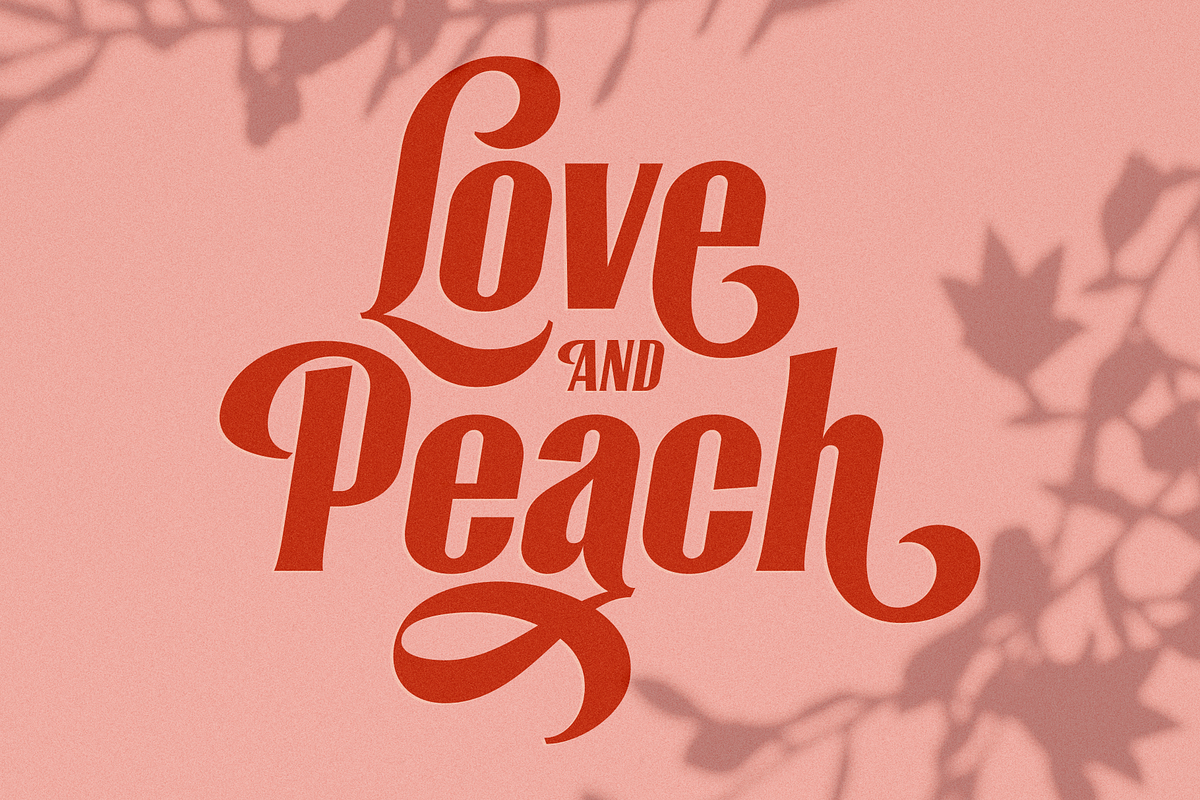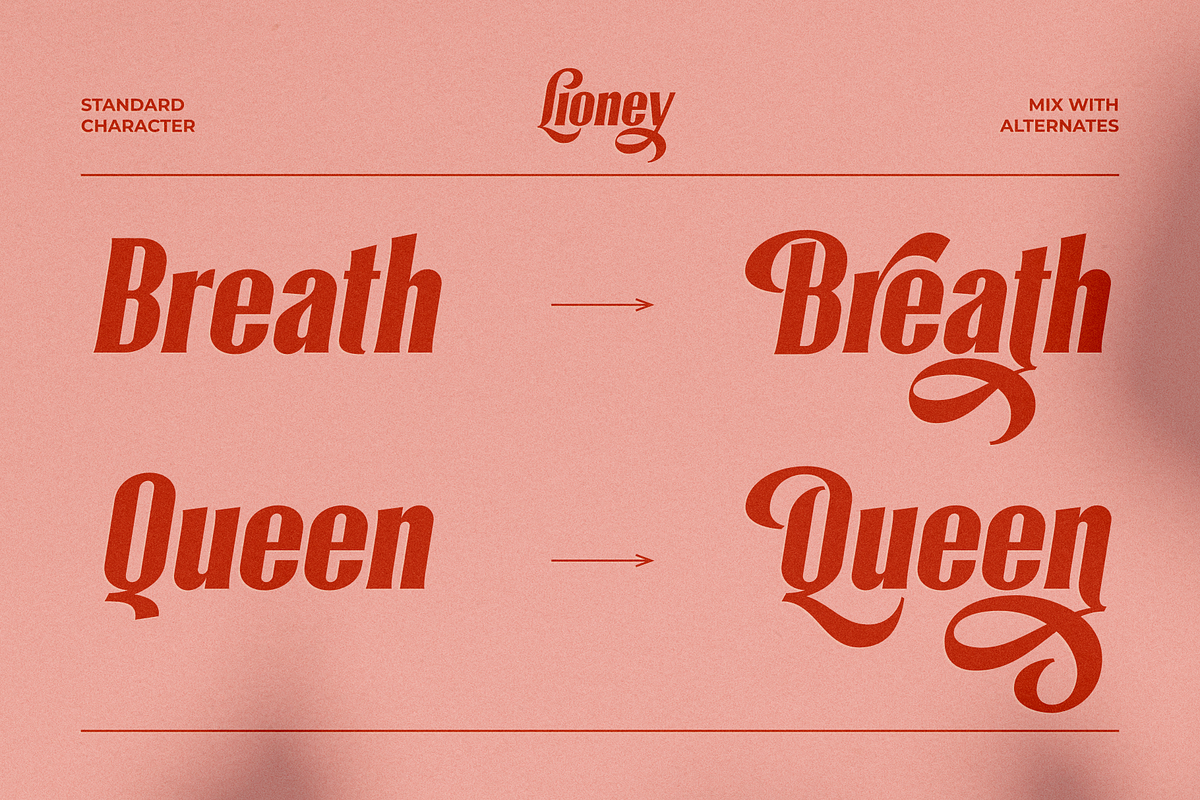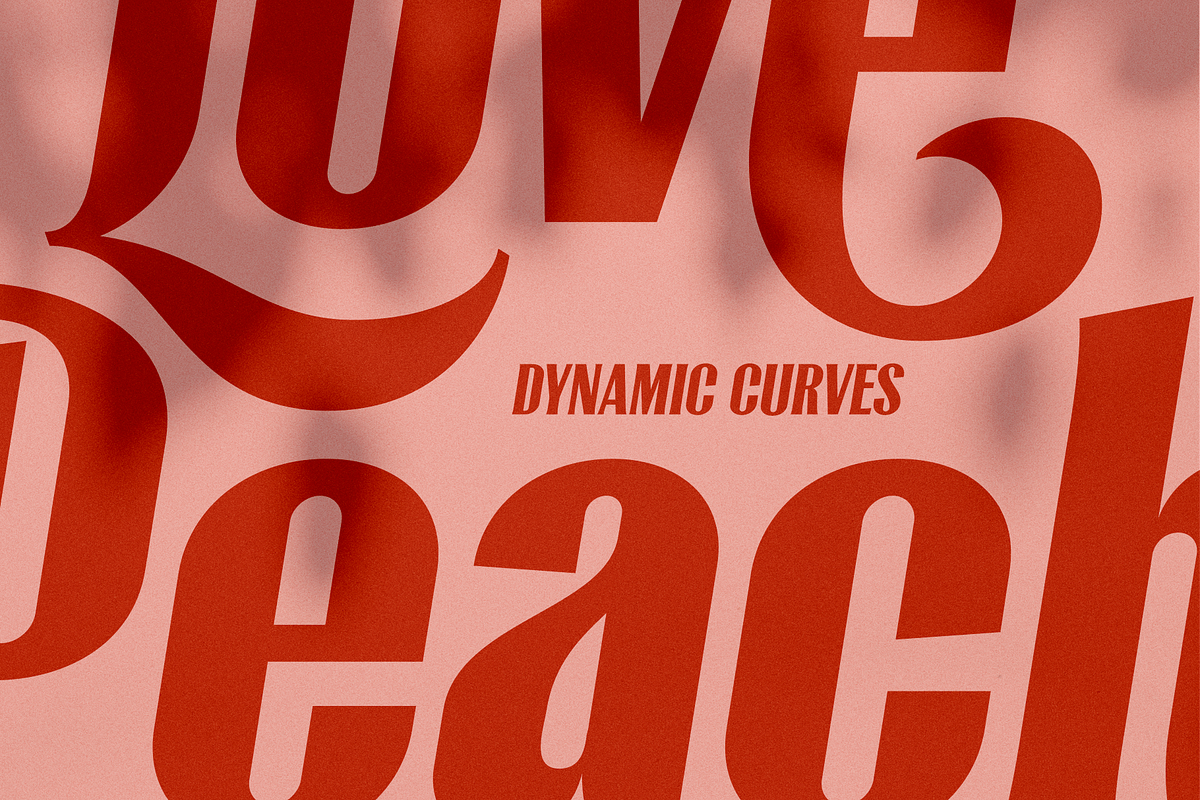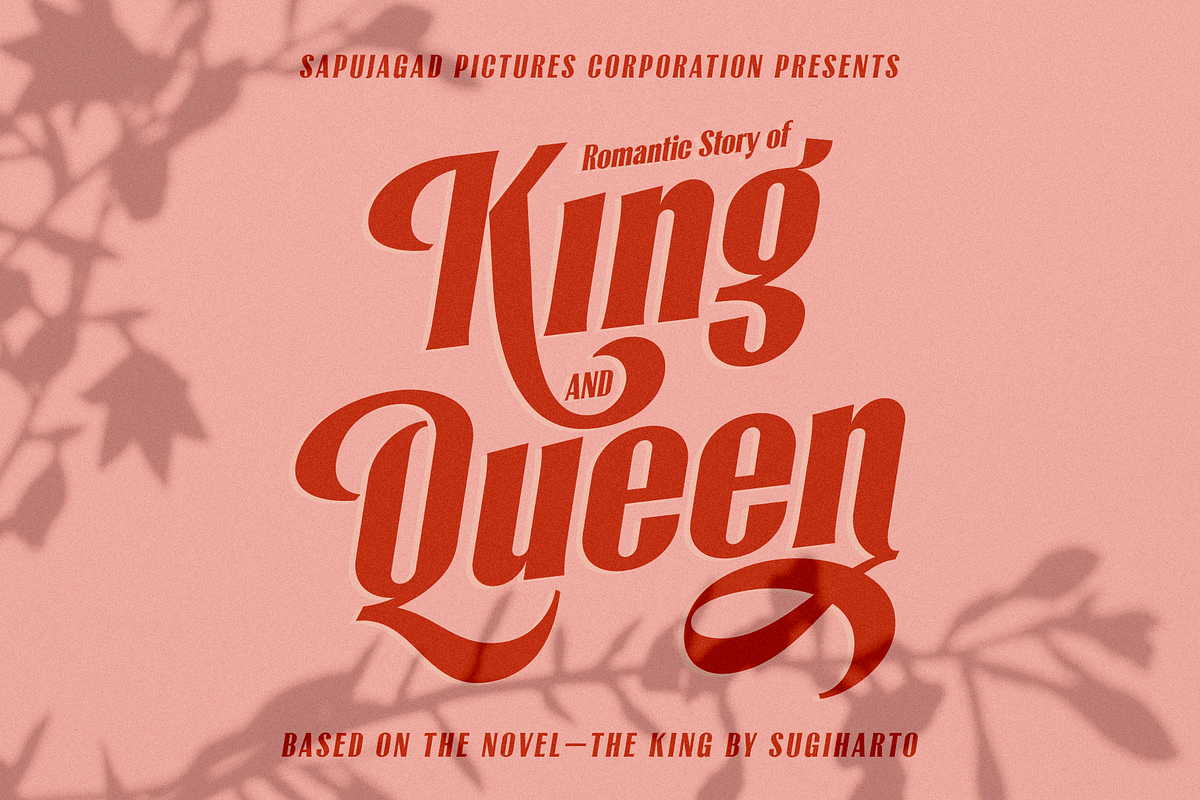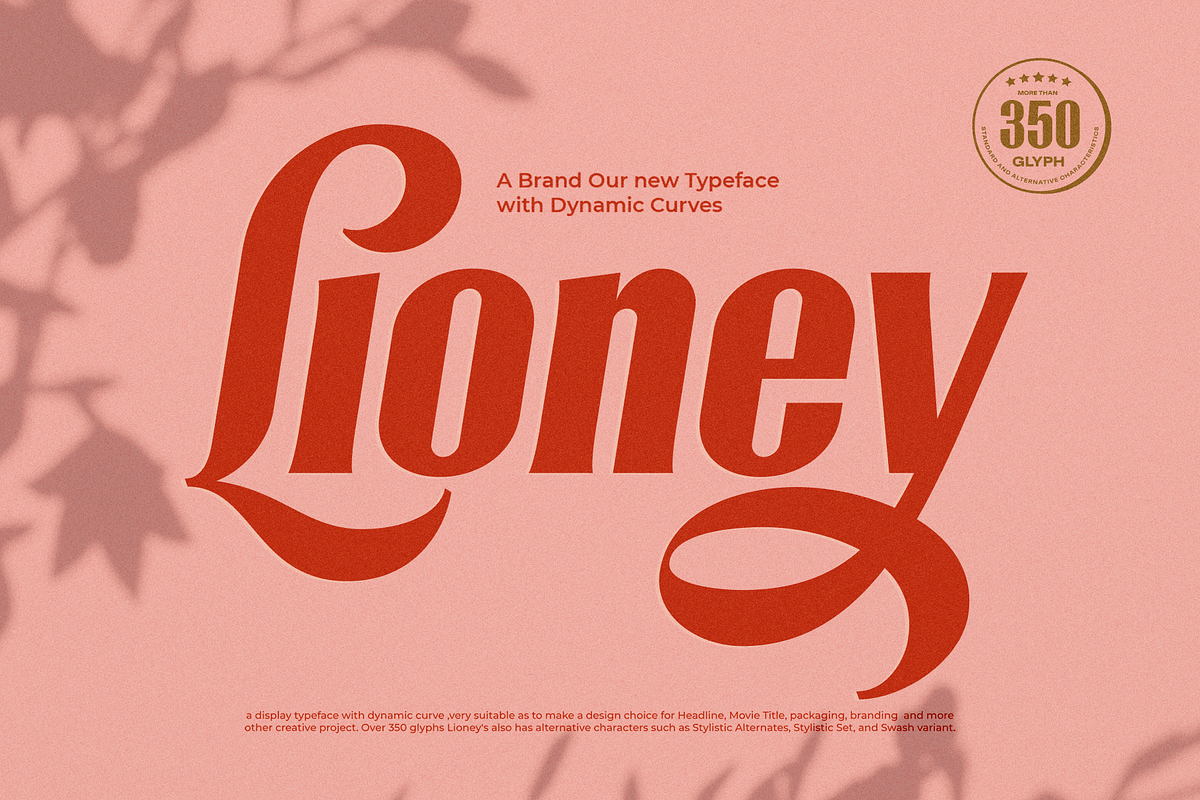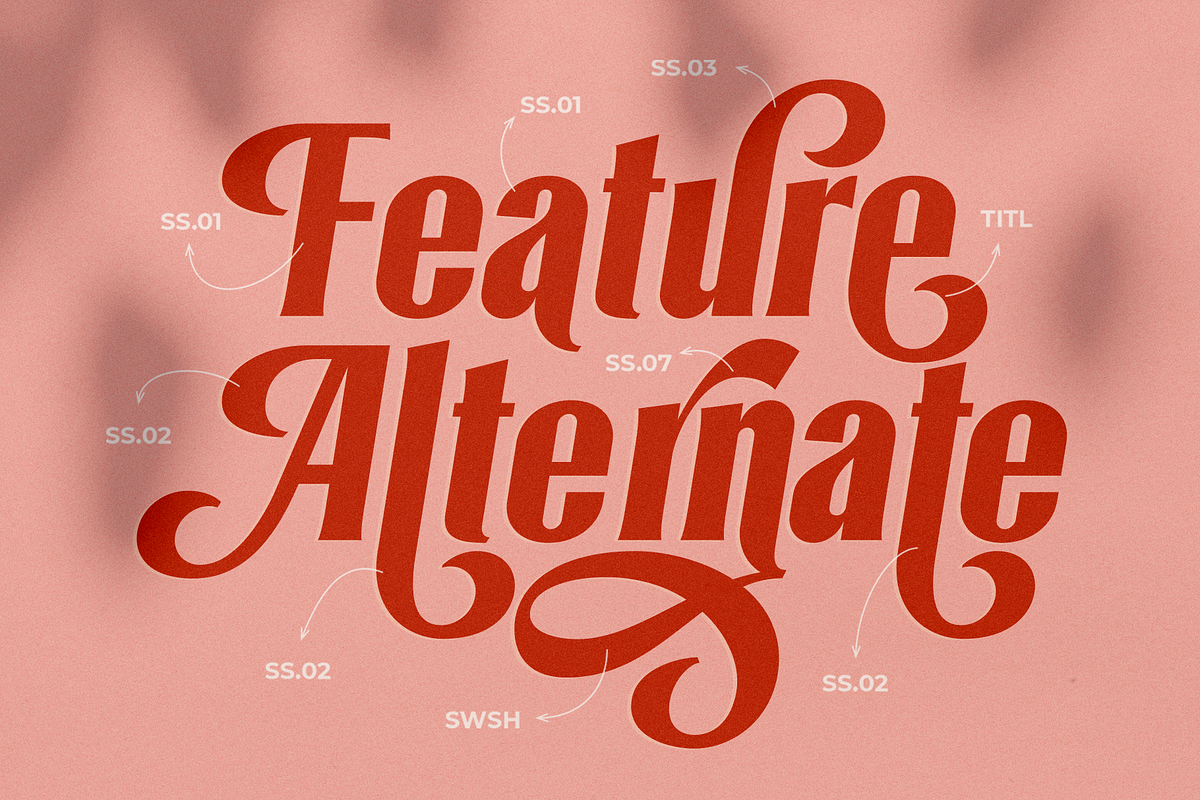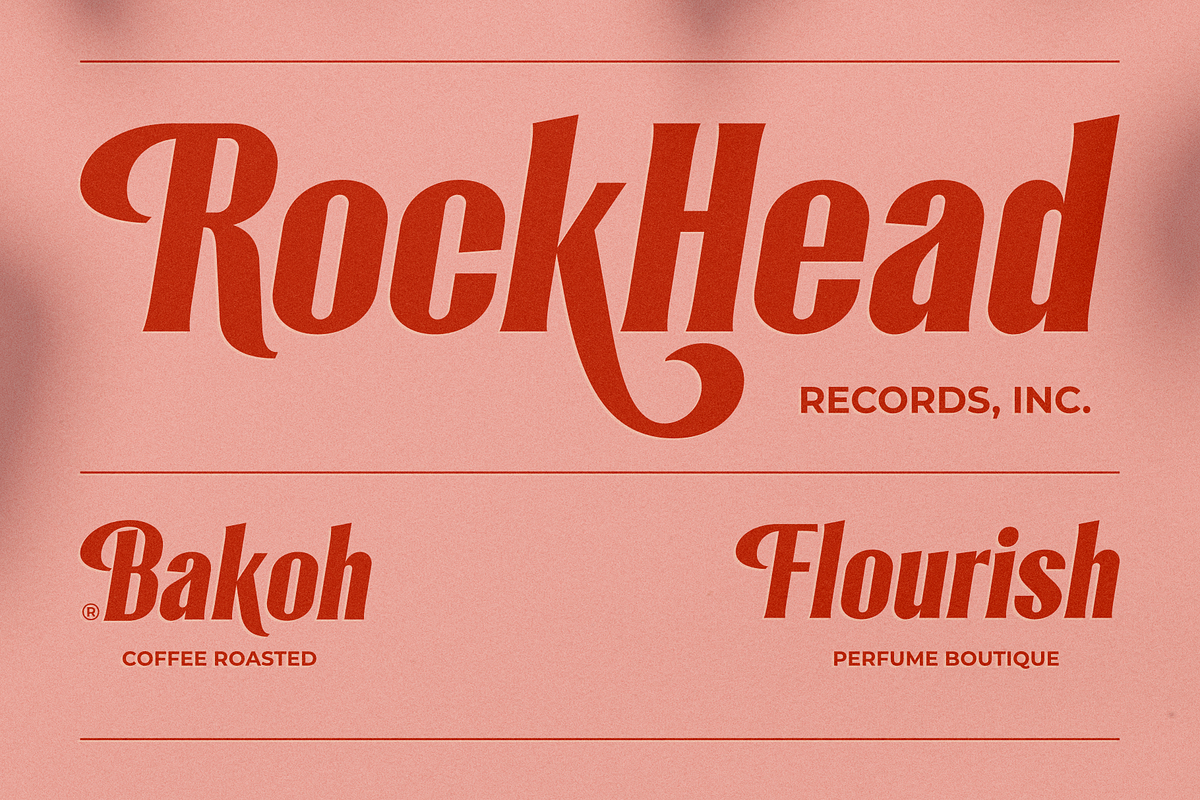
Lioney Oblique
Lioney Oblique is a display typeface with dynamic curve ,very suitable as to make a design choice for Headline, Movie Title, packaging, branding and more other creative project. Over 350 glyphs Lioney's also has alternative characters such as Stylistic Alternates, Stylistic Set, and Swash variant.